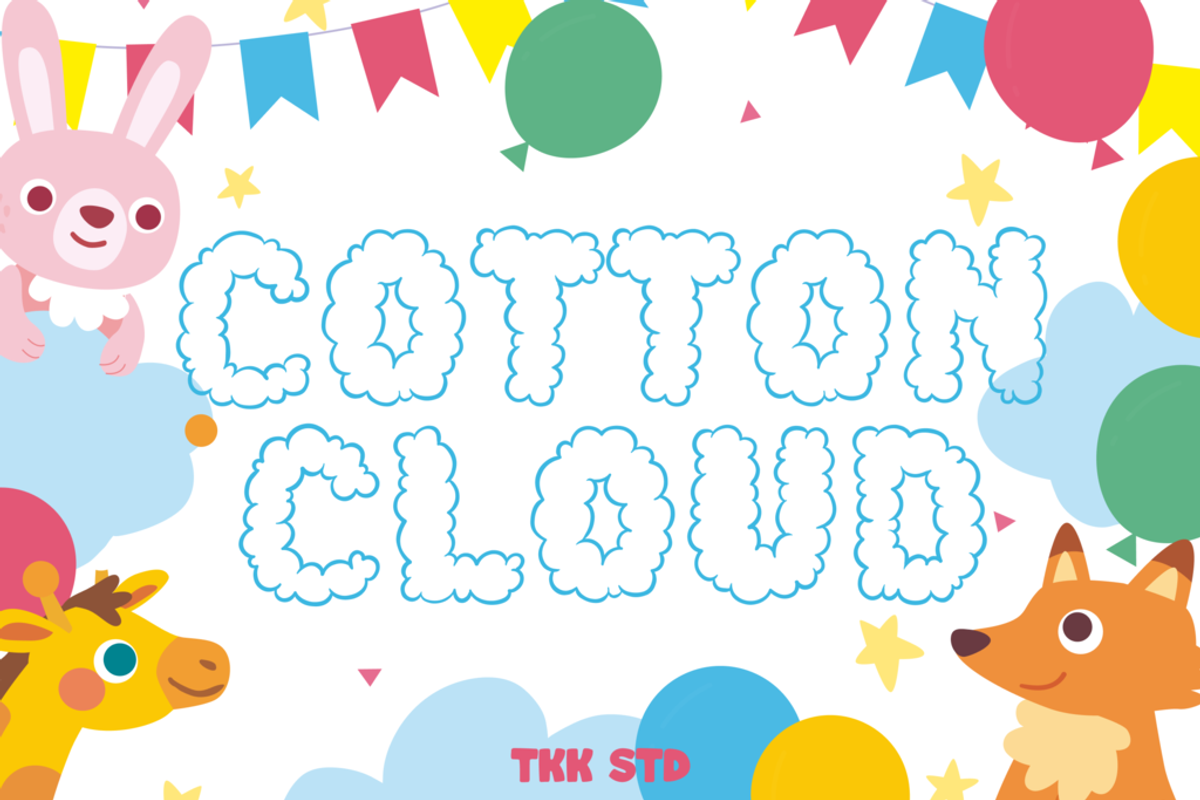
Cotton Cloud Cute Font Free Download is an adorable and playful typeface designed to add sweetness and charm to any project. With its soft curves and bubbly letterforms, this font is perfect for kids’ designs, baby products, greeting cards, logos, and fun social media content. It brings a warm, joyful feel that instantly brightens your visuals.
Whether you're working on children’s books, party invitations, or kawaii-themed branding, Cotton Cloud is your go-to font for all things cute and cozy. Add a touch of happiness to your work with this whimsical typeface.